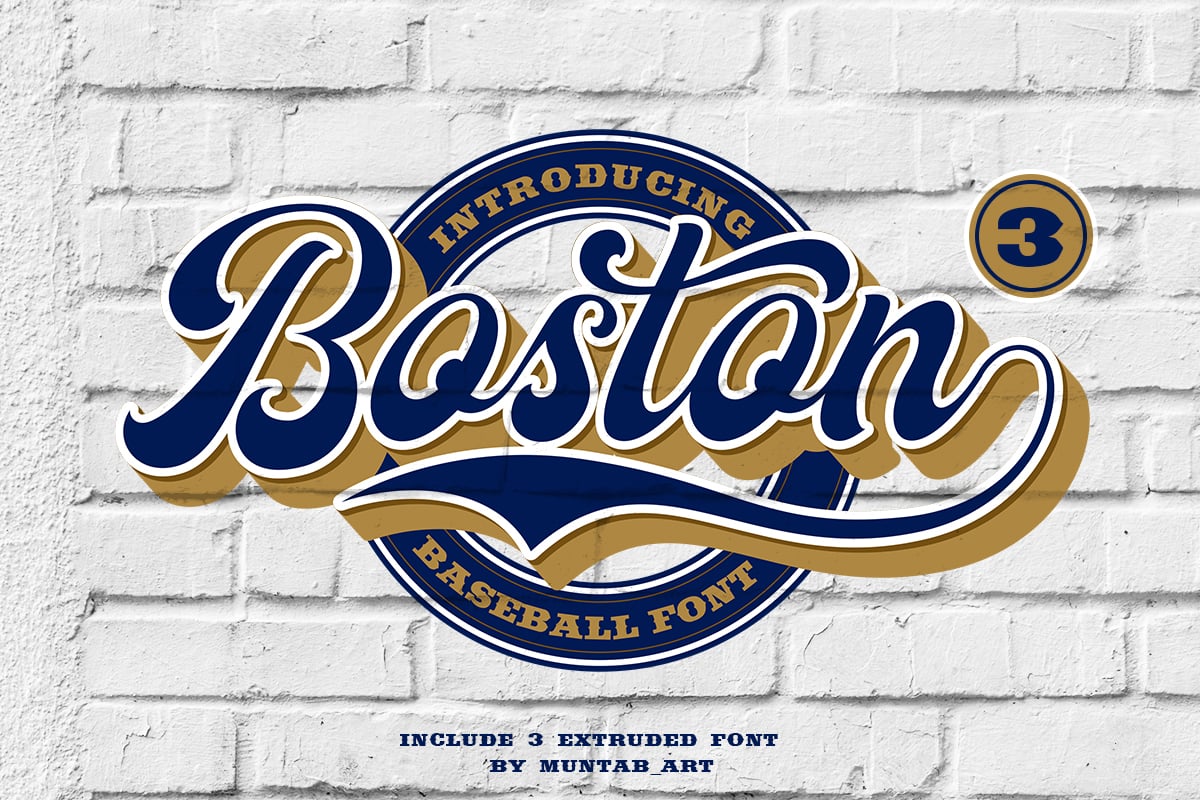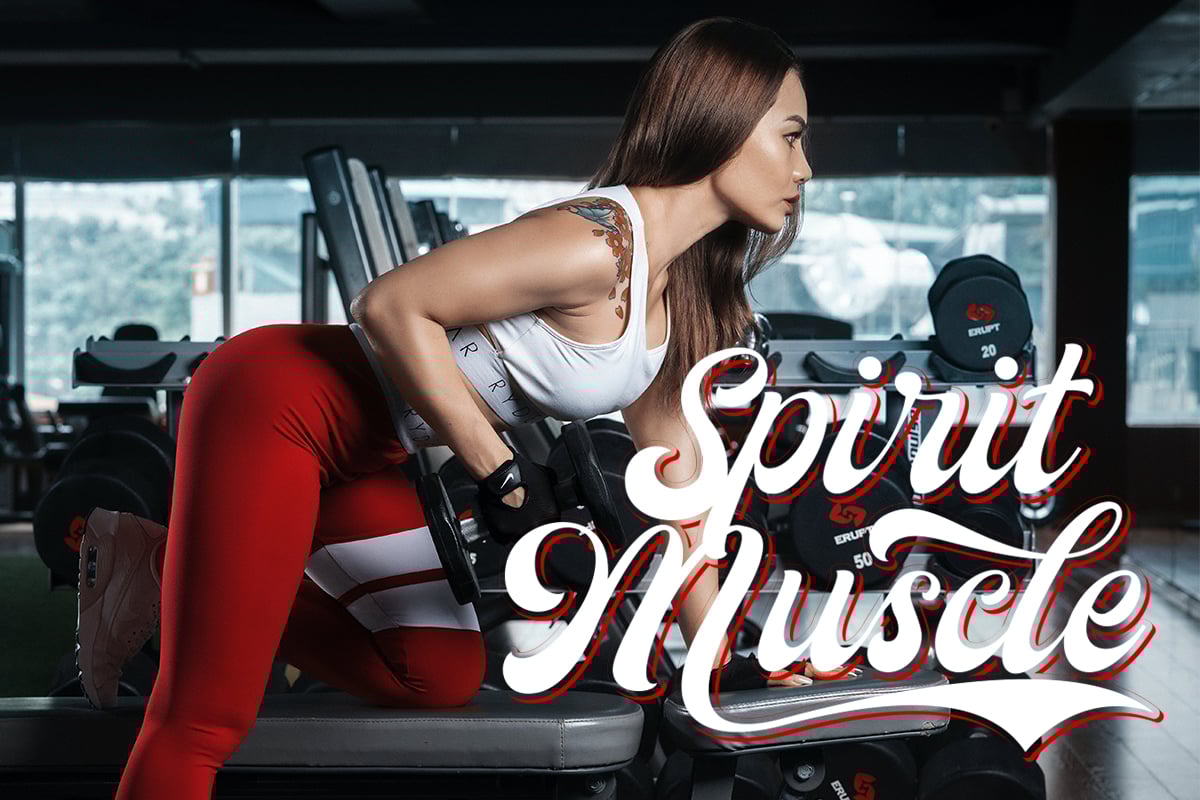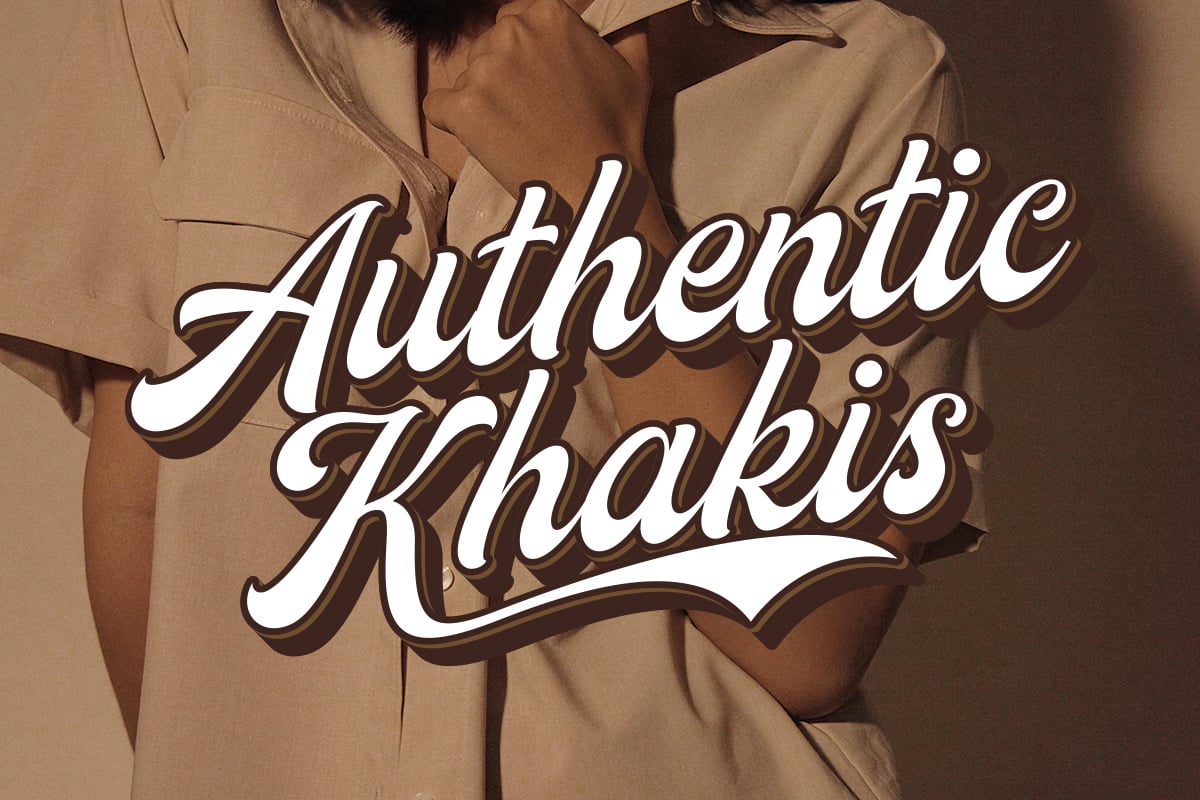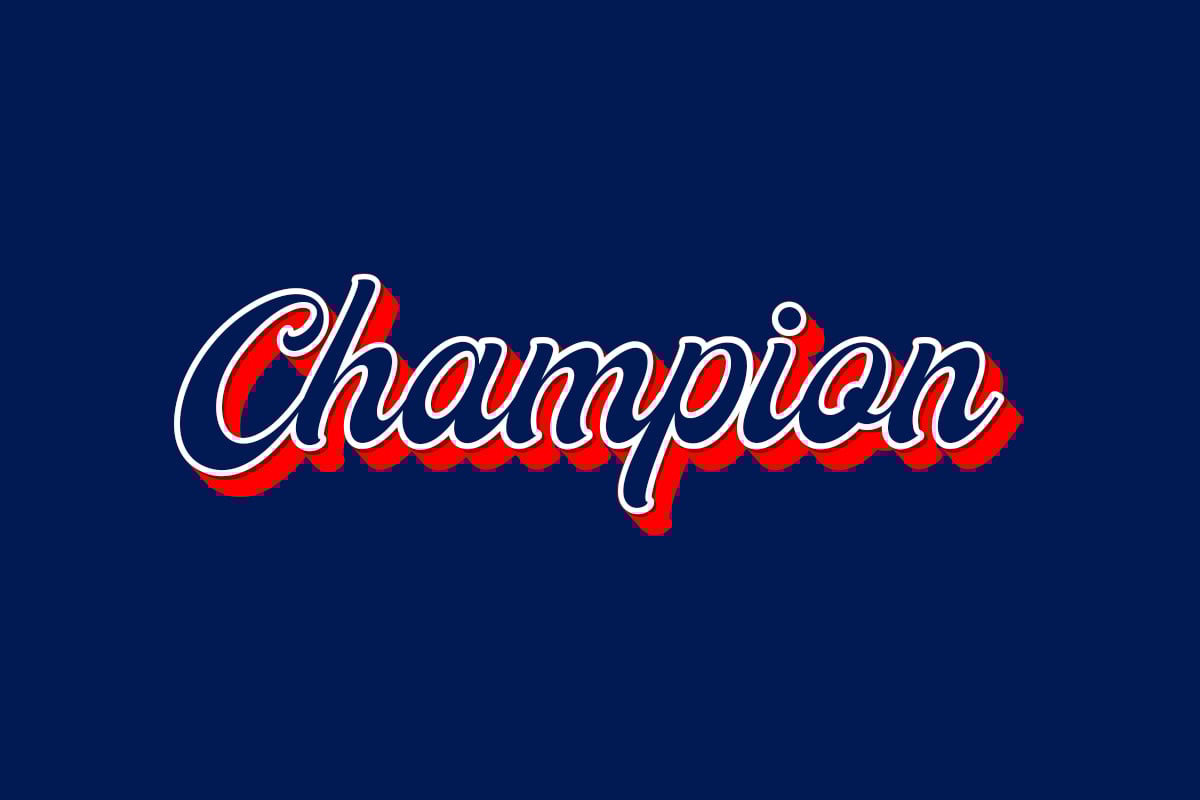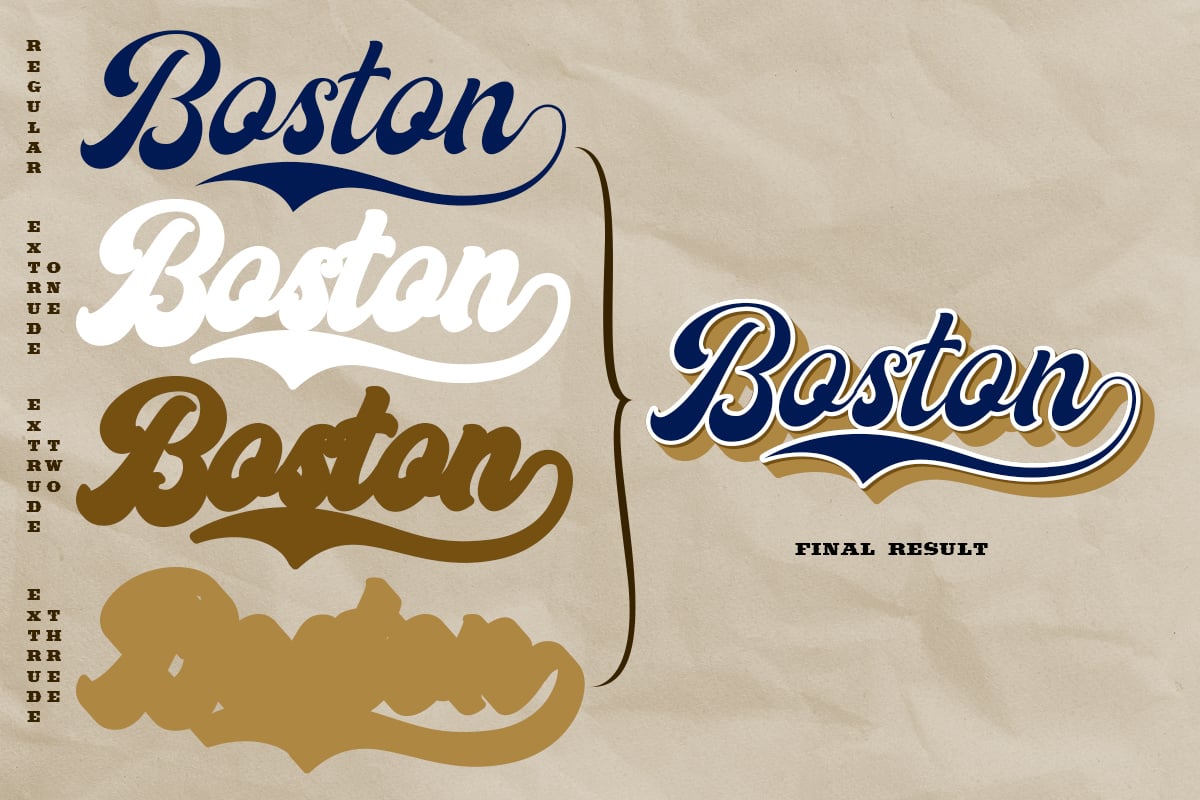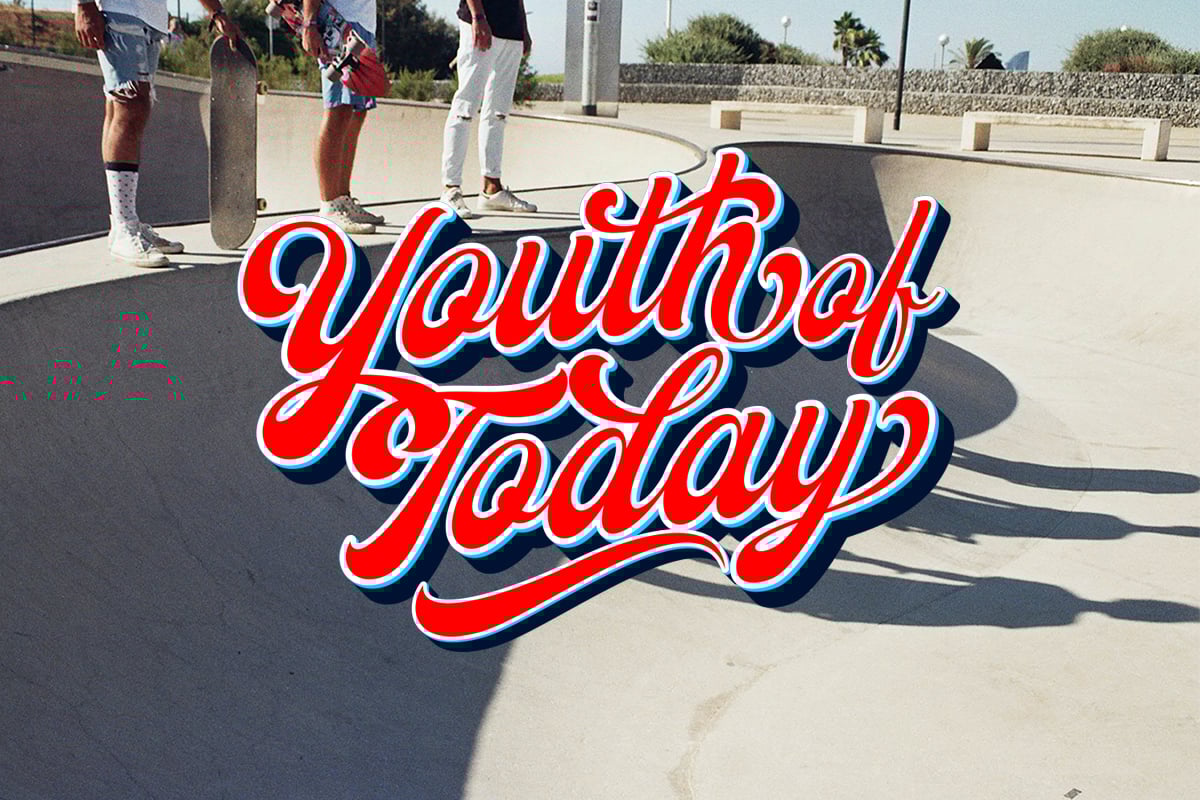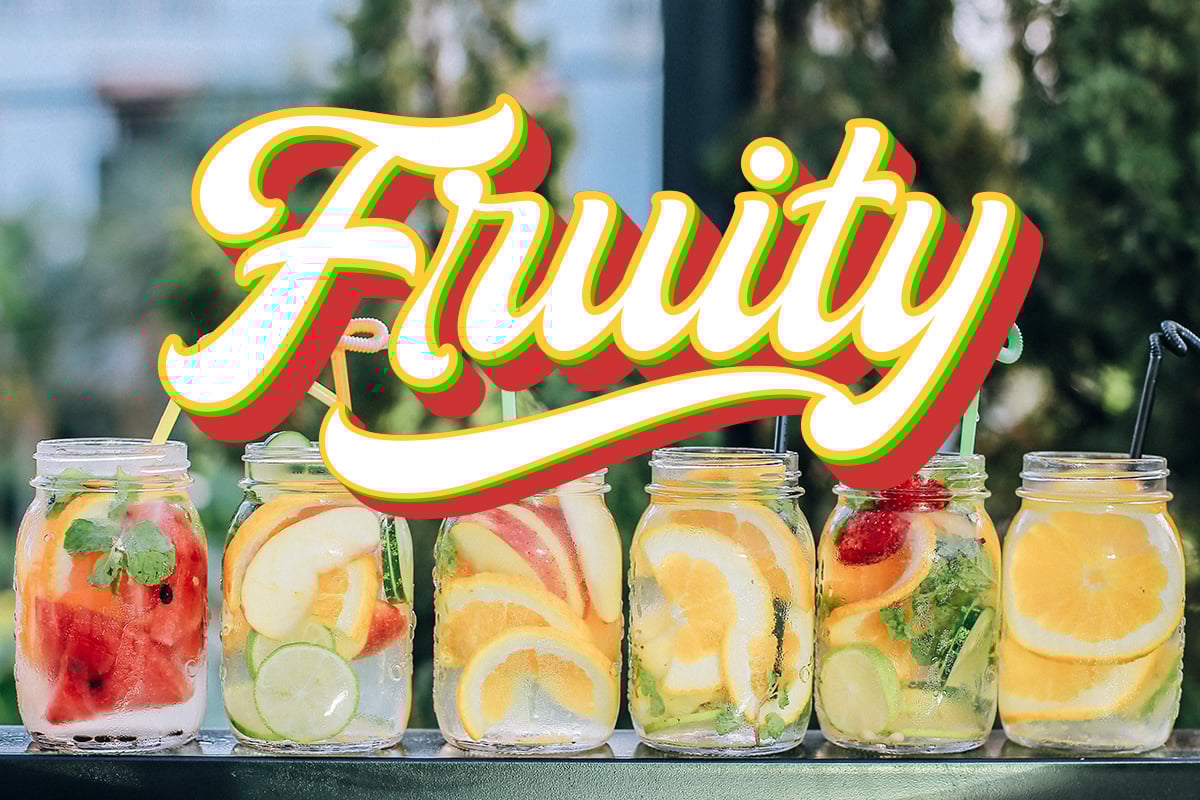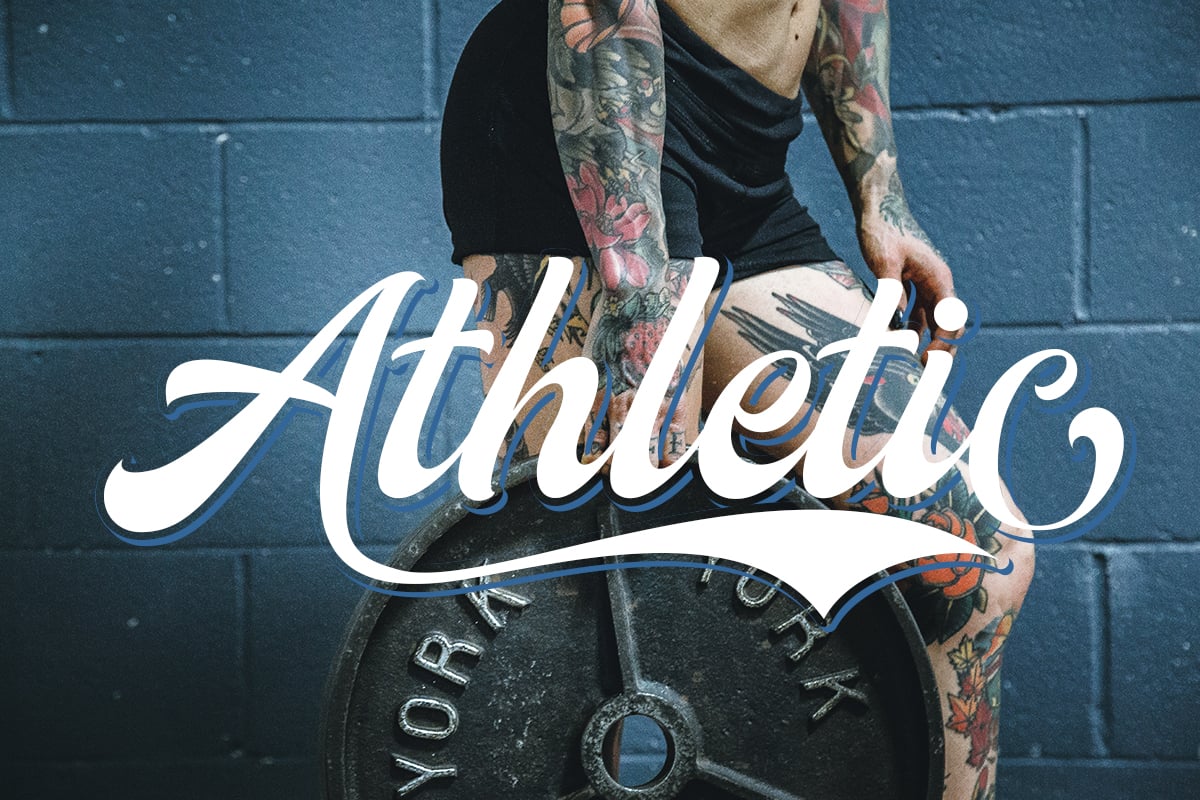
Boston | Baseball Script font
Introducing of our new product the name Boston | Baseball Script font. Boston Fonts includes uppercase and lowercase letters, numerals, a large range of punctuation, alternate characters, stylishtic set, extrude font and ligatures.
You can access the swash with _1 _2 _3 _4 _5